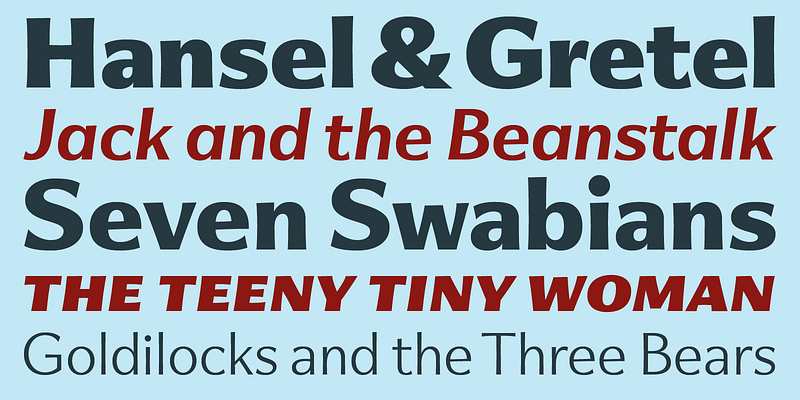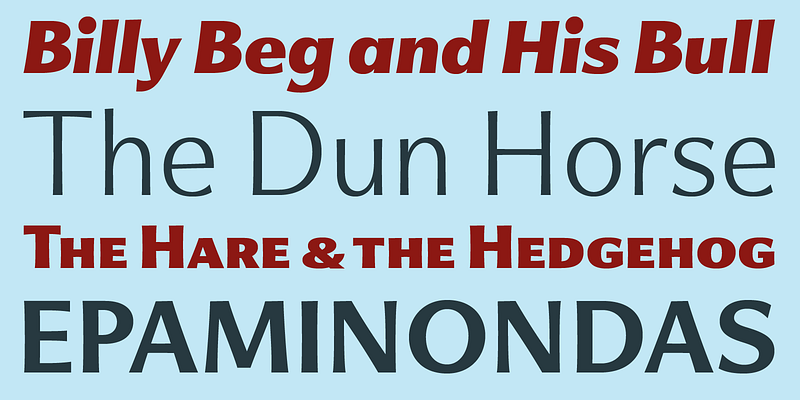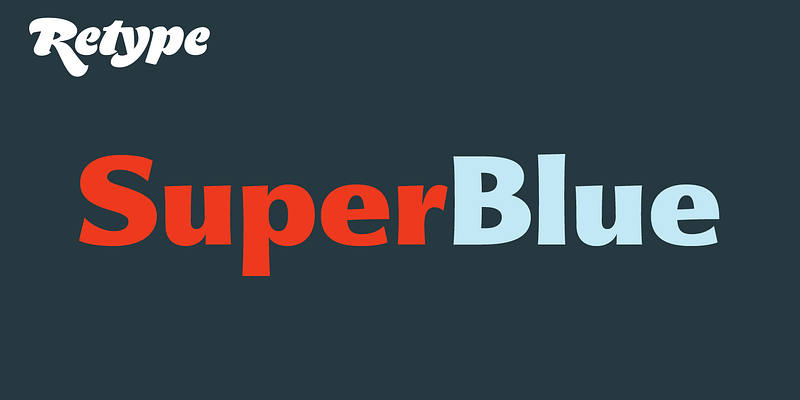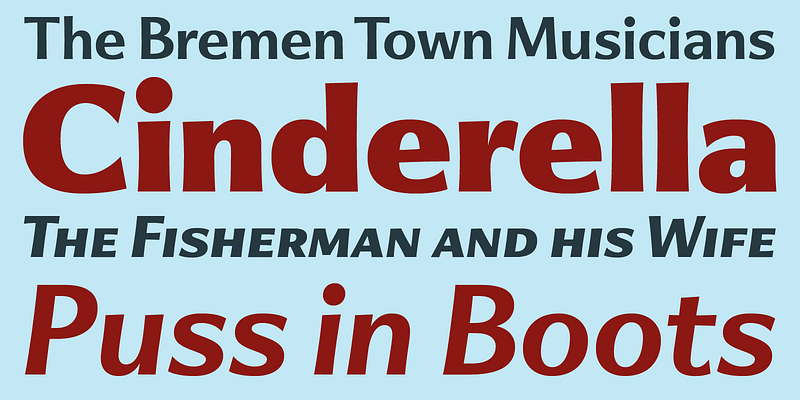
SuperBlue is a casual, cheerful sans serif family designed by Danish type designer and sign painter Seán Donohoe. While making initial sketches, he took advantage of his sign-painting skills, using two flat brushes to define SuperBlue’s basic forms. Despite its spontaneous appearance, SuperBlue does not break with the canon of traditional letterforms. Designers can readily use it to set text on paper and screens without encountering any legibility issues. Moreover, the incised appearance of its stems give words set in capital letters or small caps a remarkable elegance.
Retype Foundry is a two-person independent digital type foundry based in The Hague. Ramiro Espinoza, who founded the company in 2007, manages it in close collaboration with his partner, editorial designer Paula Mastrangelo. Retype’s catalogue reflects the pair’s interest in editorial design and a keen familiarity with Dutch type history.
Discerning design studios and art directors looking for solid, modern-looking type families will find in Retype a well-crafted and diverse selection of typefaces, many of which have won design awards. The foundry’s work meets even the most exacting requirements for aesthetics, legibility, and originality.